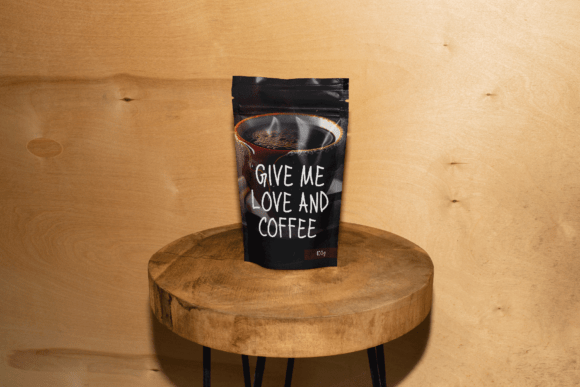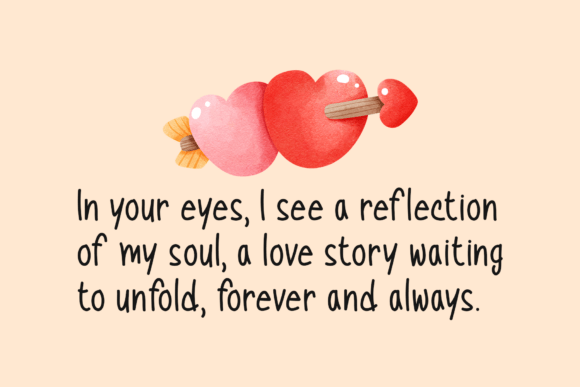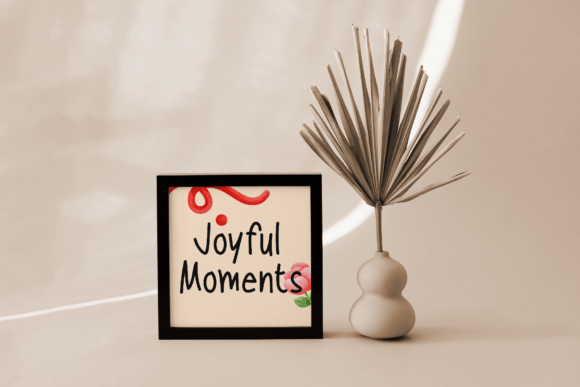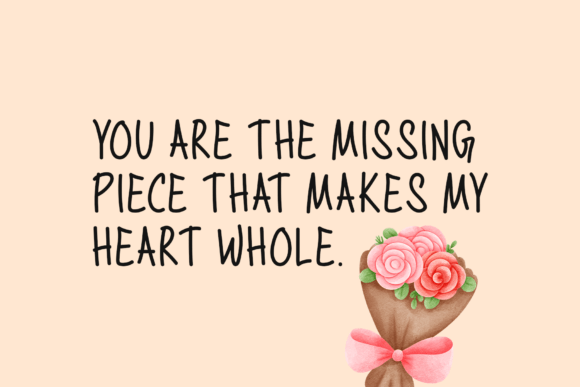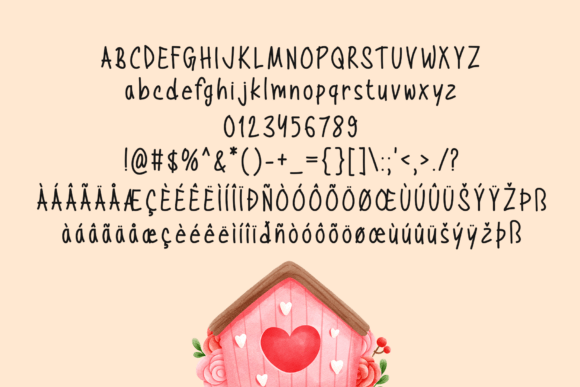
Grip Firmly Font: The Ultimate Handwritten Font for Designers and Crafters
In the world of typography, a good font can make all the difference in a design project. For designers and crafters looking for a unique and eye-catching handwritten font, Grip Firmly is an excellent choice. This influential font is perfect for a variety of design projects, from logos and stationery to t-shirts, print designs, flyers, album covers, posters, photo frames, and website headers.
What is Grip Firmly Font?
Grip Firmly is a carefully crafted handwritten font that exudes a sense of personality and flair. Its unique and stylish design makes it stand out from other fonts, making it perfect for designers and crafters who want to add a touch of elegance and sophistication to their work. The font’s adaptability and versatility make it an ideal choice for a wide range of design projects, from creative branding and advertising to personal stationery and crafts.
Key Features of Grip Firmly Font
- Handwritten style: Grip Firmly has a distinctive handwritten style that adds a personal touch to any design project.
- Eyecatching: The font’s unique design makes it perfect for grabbing attention and standing out in a crowded design landscape.
- Adaptable: Grip Firmly is highly versatile and can be used for a wide range of design projects, from logos and branding to print designs and digital media.
- Easy to read: Despite its unique design, Grip Firmly is easy to read and understand, making it perfect for body text and headlines.
Uses of Grip Firmly Font
Grip Firmly is a highly versatile font that can be used for a wide range of design projects, including:
- Logos and branding: The font’s unique design makes it perfect for creating memorable and eye-catching logos and branding materials.
- Stationery and invitations: Grip Firmly adds a touch of elegance and sophistication to stationery, invitations, and other paper crafts.
- T-shirts and apparel: The font’s bold and eye-catching design makes it perfect for t-shirts, hoodies, and other apparel.
- Print designs: Grip Firmly is perfect for print designs, including brochures, flyers, posters, and more.
- Digital media: The font can also be used for digital media, including website headers, social media graphics, and more.
Benefits of Using Grip Firmly Font
Using Grip Firmly font offers several benefits, including:
- Unique design: The font’s unique design helps designers and crafters stand out in a crowded design landscape.
- Time-saving: Grip Firmly is a high-quality font that saves designers and crafters time and effort in creating custom typography.
- High-quality: Grip Firmly is a high-quality font that is designed to produce crisp and clear results, even at small sizes.
In conclusion, Grip Firmly font is an excellent choice for designers and crafters looking for a unique and eye-catching handwritten font. Its adaptability, versatility, and ease of use make it perfect for a wide range of design projects, from logos and branding to print designs and digital media. Whether you’re a professional designer or a crafter, Grip Firmly font is sure to add a touch of elegance and sophistication to your work.
Overall, Grip Firmly font is a valuable addition to any designer’s or crafter’s toolkit. Its unique design, adaptability, and ease of use make it perfect for a wide range of design projects. So why not give it a try and see how it can elevate your designs to the next level?